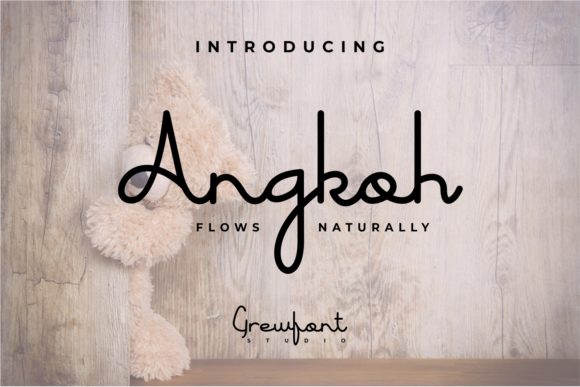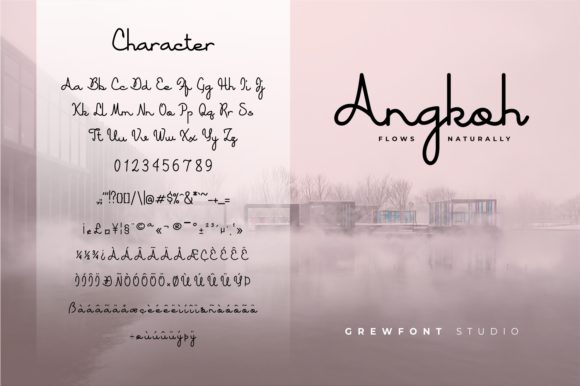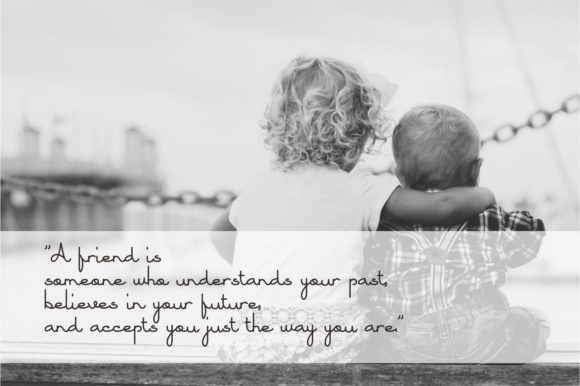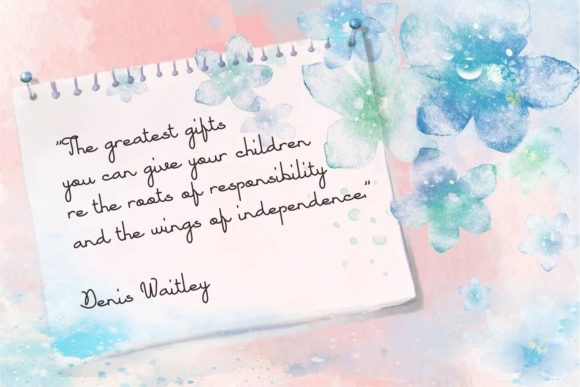
Angkoh Font
Angkoh is an enchanting handwritten font. It features smooth and modern lines. Use this gorgeous and unique typeface to bring any DIY project to life!